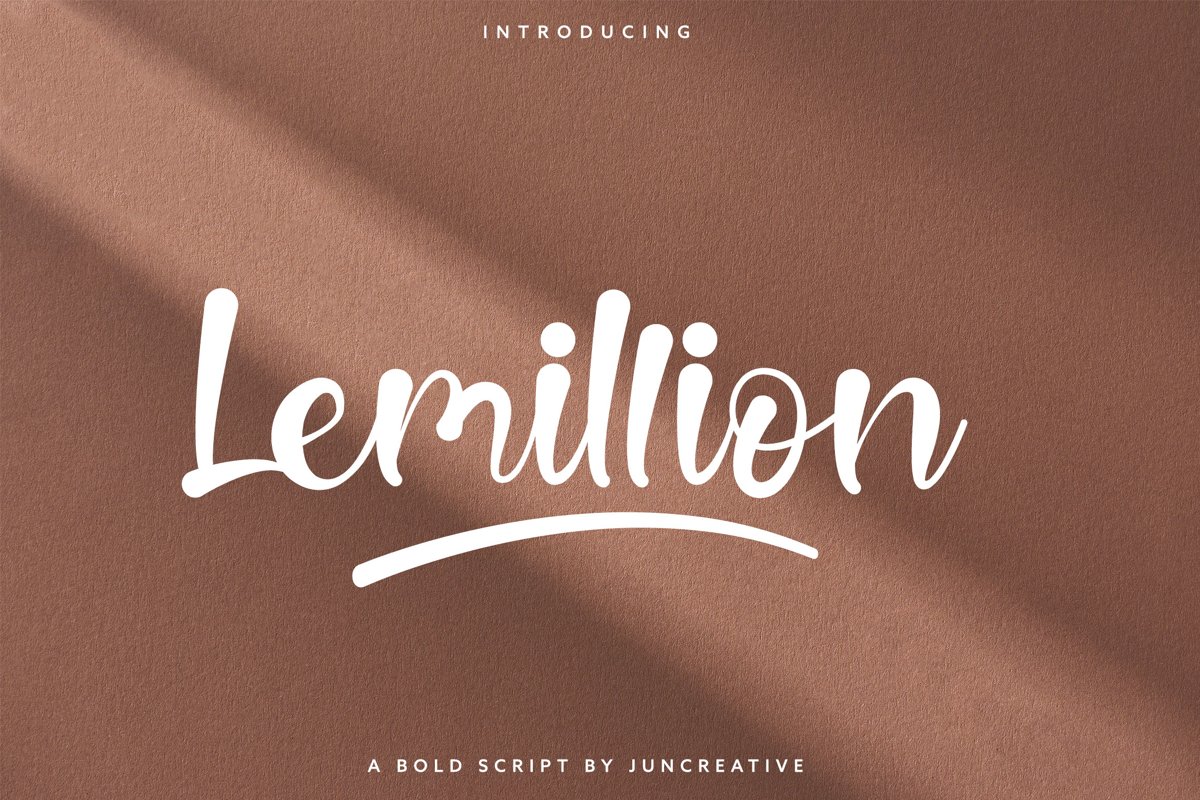
Lemillion Bold Script
Lemillion is a cute and casual handwritten font with an incredibly friendly feel. It features gorgeous swashes and ligatures that make this script incredibly versatile. Whether you’re looking for fonts for Instagram or calligraphy scripts for DIY projects, Lemillion will turn any creative idea into a true piece of art, also already PUA encoded.